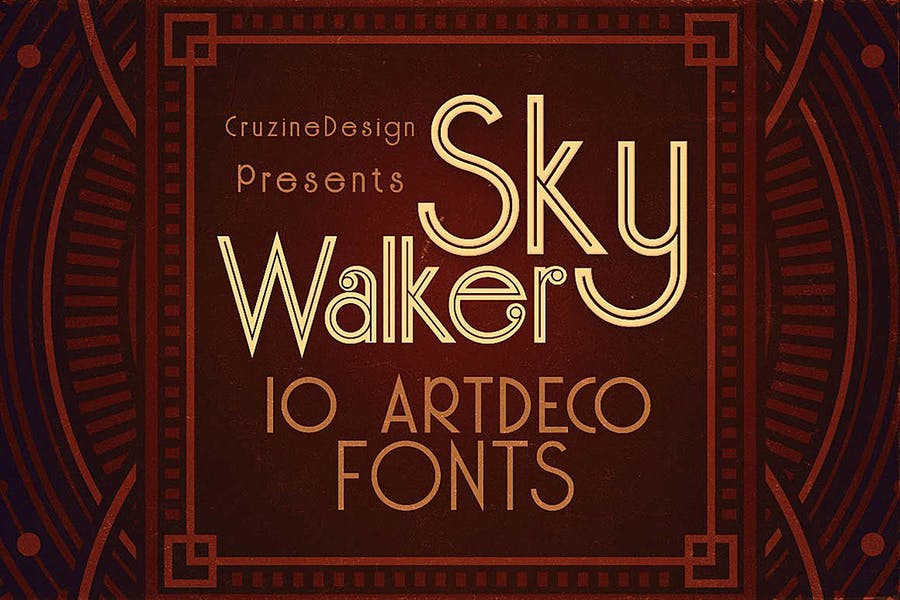
Skywalker - ArtDeco Typeface Font
Skywalker - ArtDeco Typeface Font is perfect for luxury hotel branding, vintage cocktail bar signage, art deco architecture projects, 1920s themed events, premium jewelry packaging, classic car show materials, gatsby-style wedding invitations, upscale restaurant identity, retro fashion campaigns, historic preservation signage, vintage poster reproductions, and sophisticated period storytelling.
Skywalker - ArtDeco Typeface Font is exciting because it captures the opulent glamour and geometric sophistication of the roaring twenties with bold, architectural letterforms that embody the optimistic spirit and luxurious aesthetic of the art deco movement, perfectly suited for projects celebrating elegance, progress, and timeless sophistication.
The Skywalker - ArtDeco Typeface Font family includes period variations: Regular, Bold, Light, Outline, Inline, and Ornamental styles, providing designers with a complete art deco typography arsenal to create authentic compositions that honor the golden age of design and architectural excellence.
Ascend to golden age elegance with Skywalker - ArtDeco Typeface Font Free Download. This magnificent art deco typeface brings the glamorous sophistication and architectural beauty of the 1920s to contemporary design projects. Whether you're creating luxury brand identities, designing period-themed event materials, or developing sophisticated marketing campaigns, Skywalker - ArtDeco Typeface Font delivers unmatched elegance and vintage authority.
The font's expertly crafted letterforms reflect the geometric precision and luxurious ornamentation that defined the art deco movement, with strong vertical emphasis and elegant proportional relationships that echo the soaring architecture of the era. Each character demonstrates the perfect balance between artistic expression and functional clarity.
Skywalker - ArtDeco Typeface Font excels in creating memorable brand experiences for businesses celebrating luxury, heritage, and sophisticated design traditions. Its commanding presence transforms ordinary communications into statements of refinement that resonate with audiences who appreciate historical elegance and timeless aesthetic excellence.
Professional designers appreciate how Skywalker - ArtDeco Typeface Font maintains authentic period character while providing exceptional functionality for modern applications. The comprehensive style range ensures optimal performance from intimate luxury packaging to grand architectural signage, maintaining consistent art deco sophistication and visual authority.
This remarkable typeface brings instant prestige to luxury ventures and heritage-focused businesses. From boutique hotels to premium spirits brands, Skywalker - ArtDeco Typeface Font creates lasting impressions that communicate excellence, tradition, and the enduring appeal of art deco's golden age elegance.